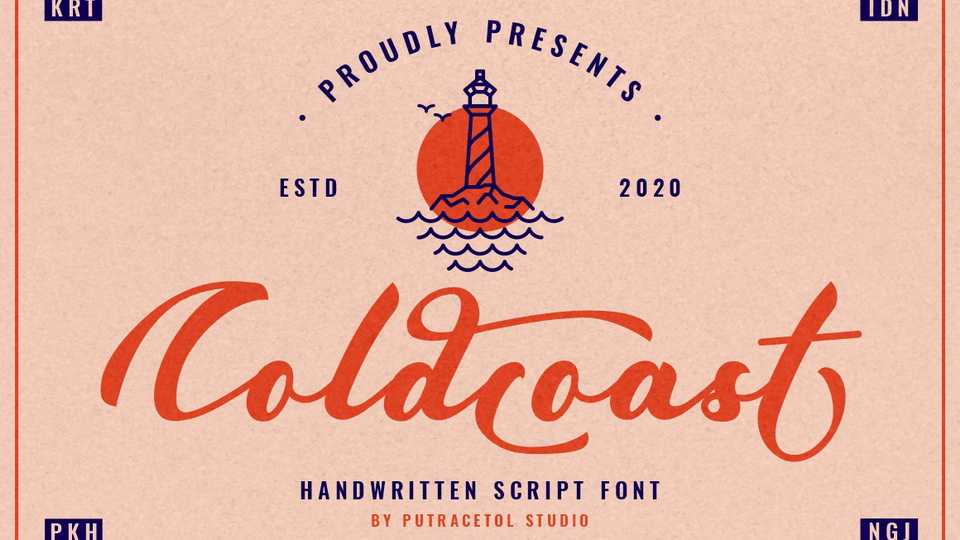
Download Coldcoast font, a charming handwritten script with a vintage feel. Coldcoast is a perfect to create incredibly distinct and timeless lettering and spectacular designs.
Designer: PutraCetol Studio